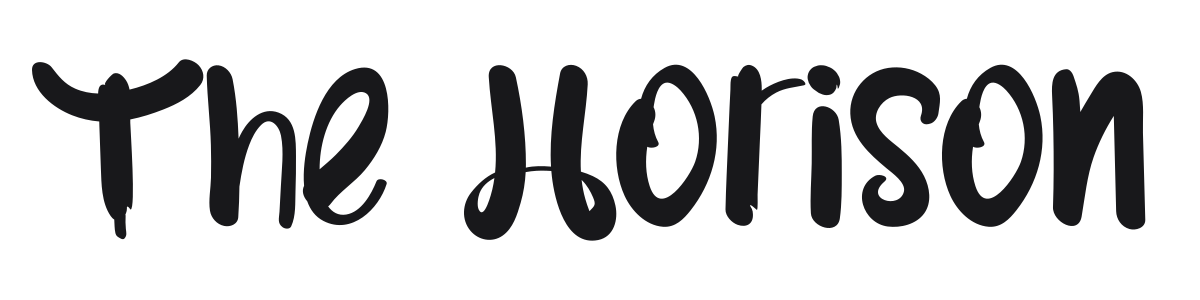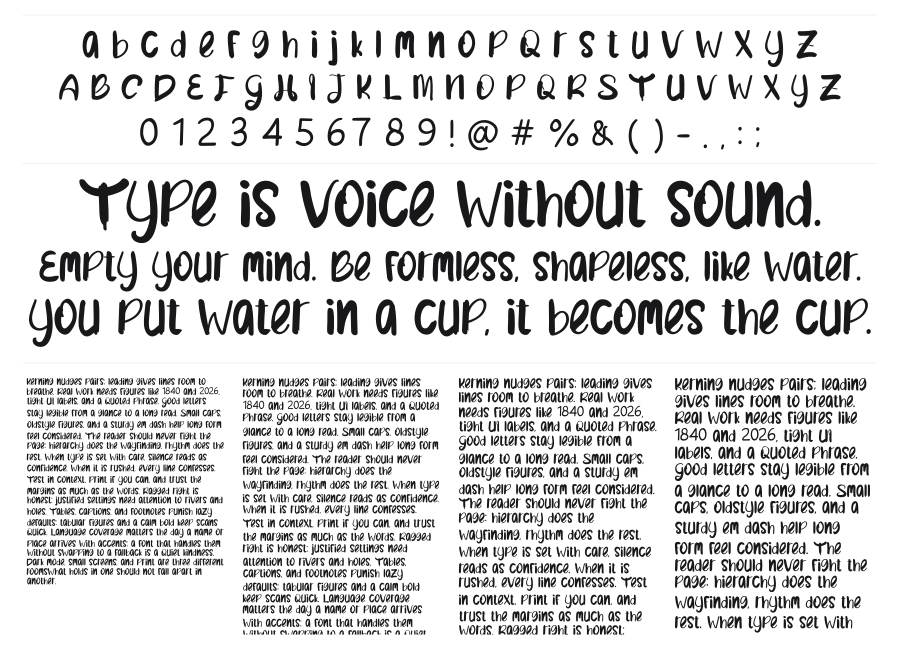
The Horison
by Muharima Rasyid
The Horison is a casual upright script with chunky, rounded strokes and an energetic hand-lettered feel. The bouncy baseline and organic variation between characters give it a spontaneous, friendly personality that reads well at large sizes. It suits branding and packaging projects that want warmth and informality without going fully decorative.